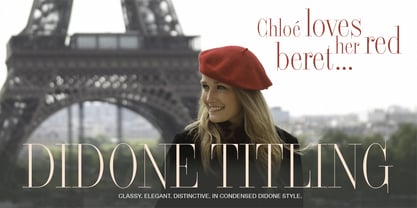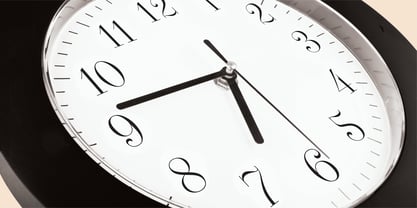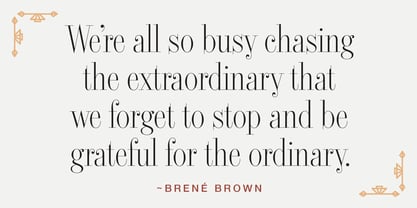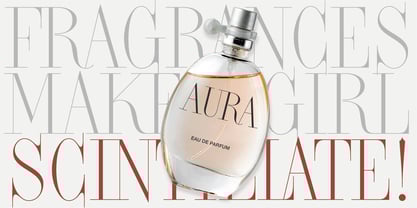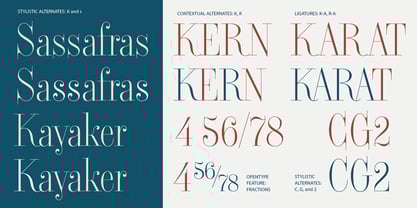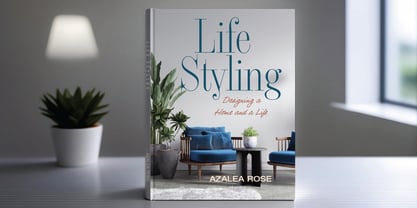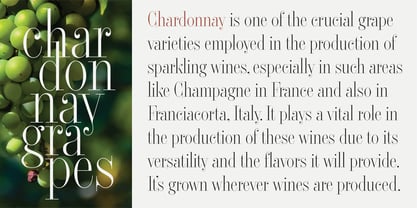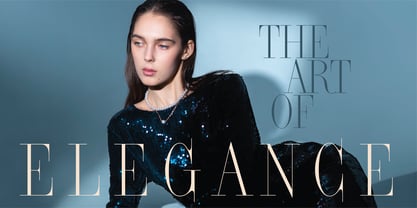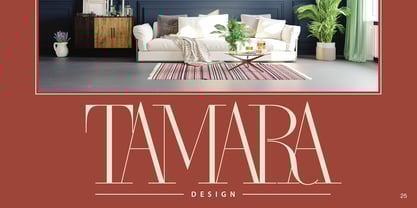
Didone Titling BF
The Didone Titling BF Font Family was designed by John Bomparte and published by Bomparte's Fonts. Didone Titling BF contains 1 styles. More about this family
Presenting Didone Titling BF. I've always loved Didone style fonts. These high-contrast serif styles (similar to Didot and Bodoni), remain ever popular among fashion, high-end luxury product designs, and the like. So one day on a whim, I set out to create my own unconventional, yet beautifully appealing take, based on Didot aesthetics. Within certain lowercase letters a, c, f, g, j, k, r, and y where you might normally expect to find "ball" or "teardrop" type ending, it completes with curvaceous curve, which I believe serves to give this font a look that's a bit "edgy". Didone Titling BF would make a very welcome addition on projects related to fashion, beauty, branding, packaging and more. Besides its intended use for display settings, it does well in short passages of large text, where it shows much appeal. Be sure to enable its OpenType features (such as Ligatures, Stylistic and Contextual Alternates, Fractions) for your typographic enhancement.
Didone Titling BF